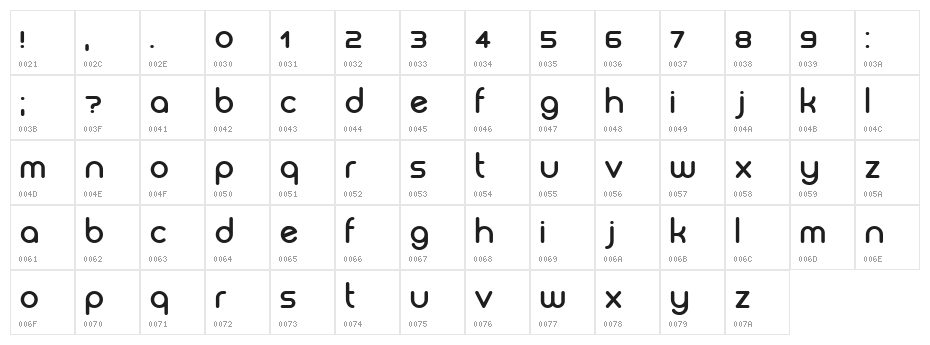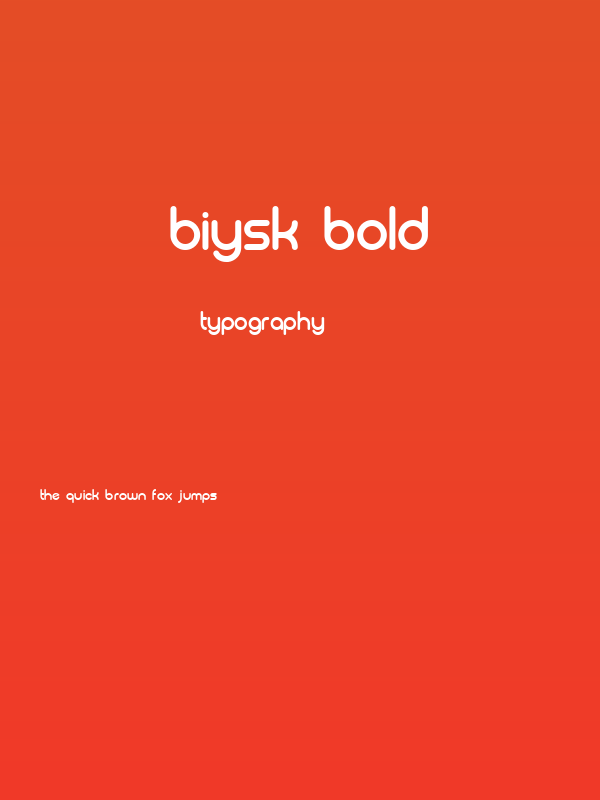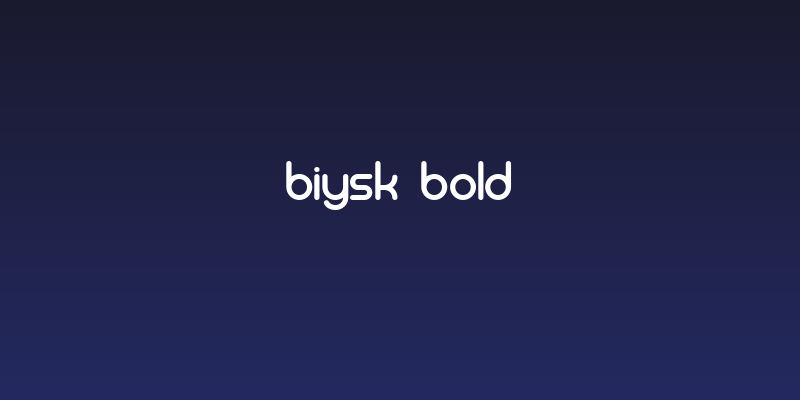
Biysk Bold Font
Biysk Bold Description
This font features a rounded, geometric style with smooth curves and a modern aesthetic. The characters are bold and uniform, providing a clean and approachable appearance. The rounded terminals and consistent stroke width give it a friendly and contemporary feel. It maintains a balance between playful and professional, making it versatile for various design needs. The numerals and special characters are designed to match the overall style, ensuring cohesion across all text elements.
| Proposed Projects | Ideal for branding, advertising, packaging, and digital interfaces where a modern and approachable look is desired. |